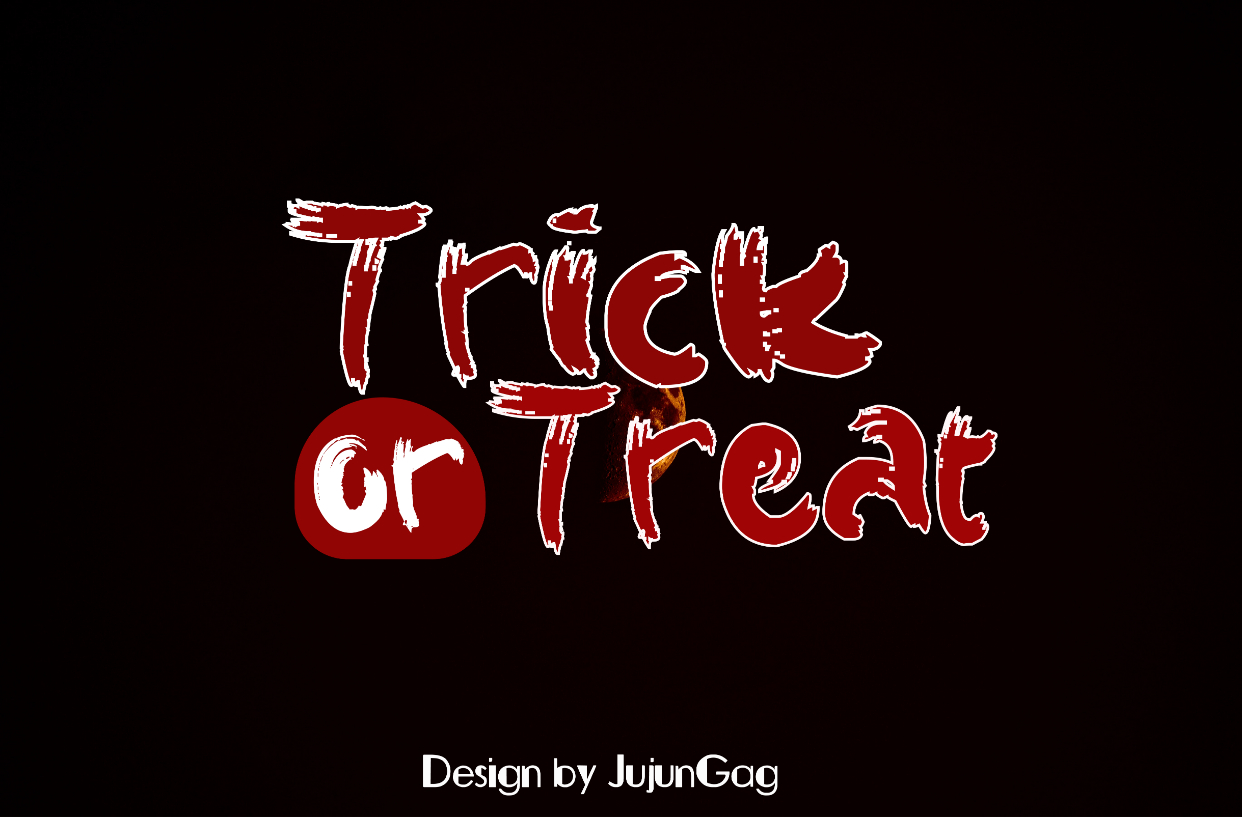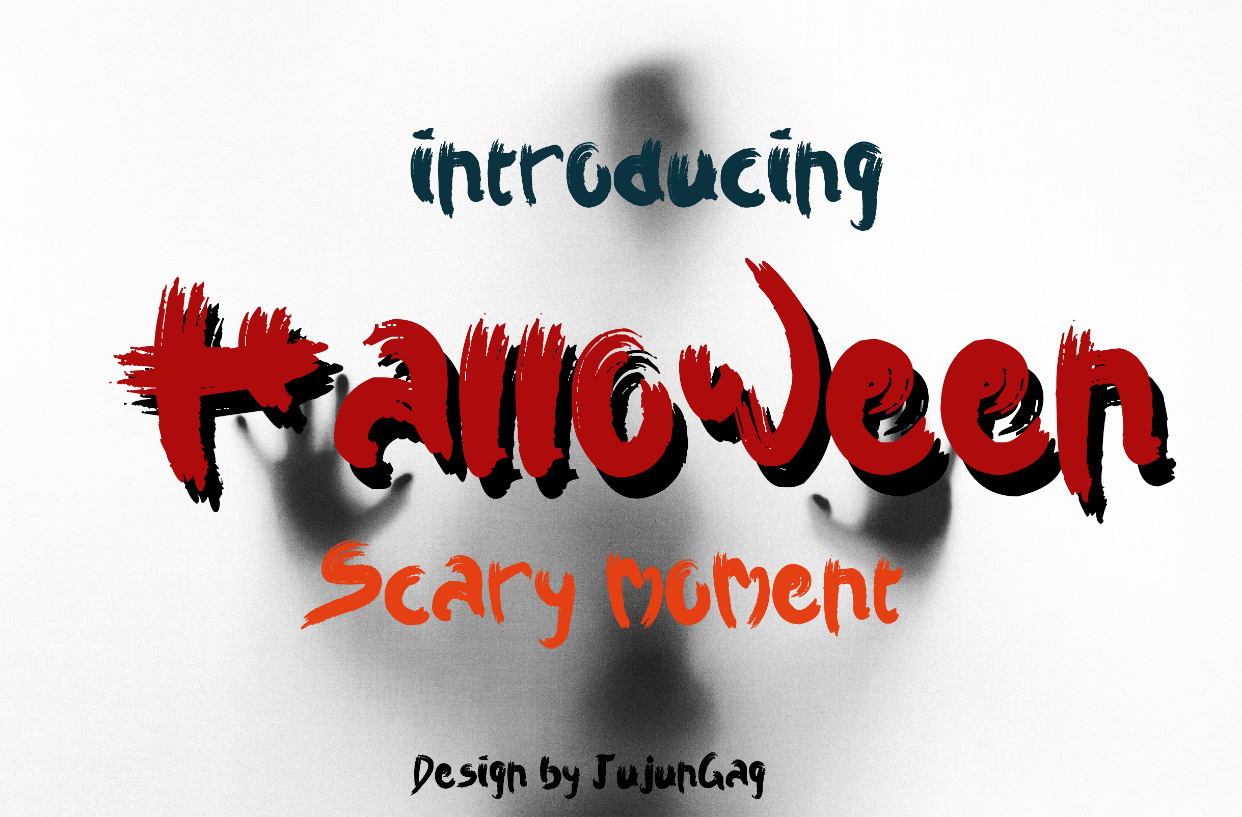
Forest Font
About Forest Font
Forest is a blackletter font that is perfect for Halloween and other spooky design ideas. It will add a horror theme to any crafting project!